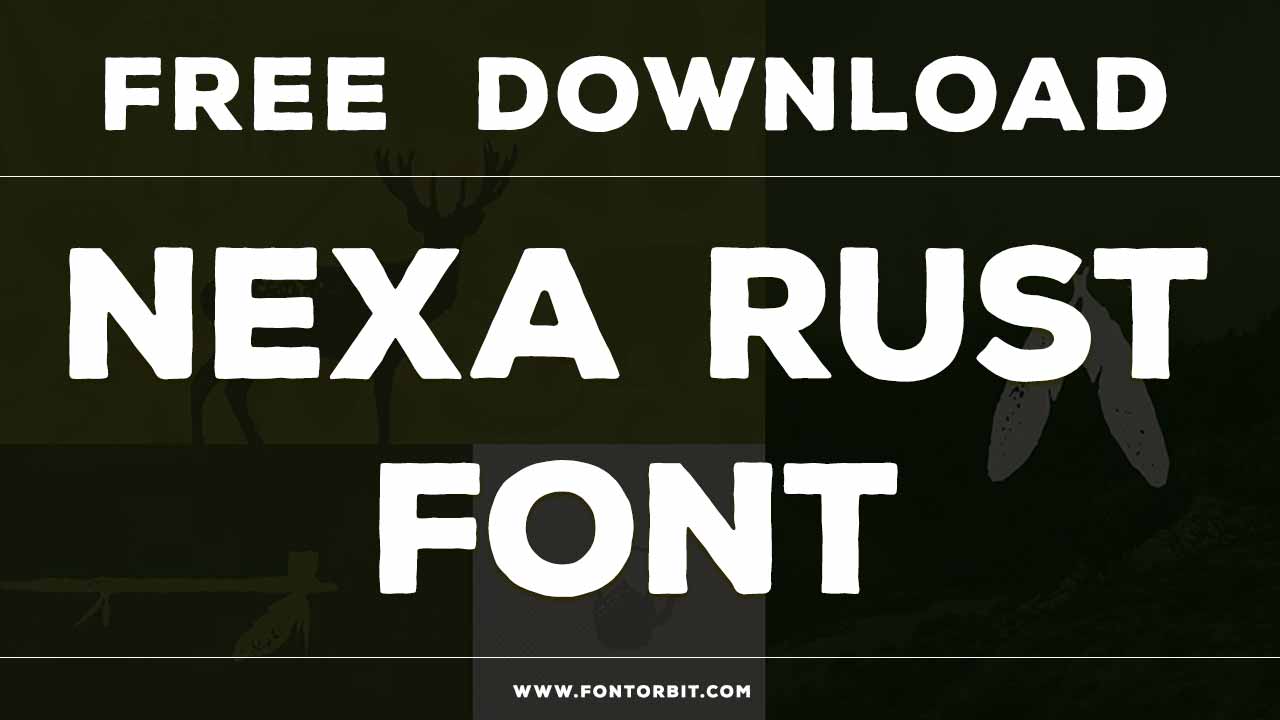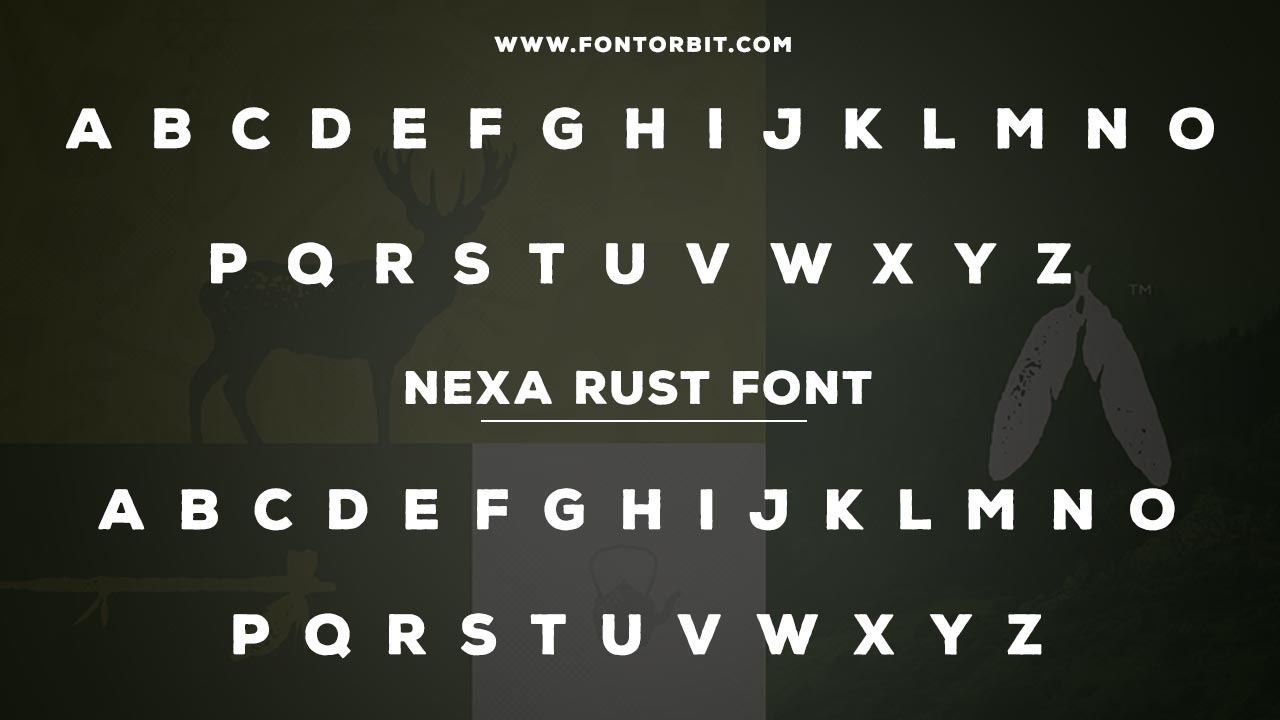
Nexa Rust Font, a multifaceted font system, was designed by Svetoslav Simov, Vasil Stanev, and Radomir Tinkov and published by Fontfabric Type Foundry. This display font has gained popularity due to its rough version of the popular Nexa family. With 83 fonts included, it offers versatility for various design projects. Whether you need a script font, sans serif font, or slab serif font, Nexa Rust provides a unique design with added texture and character.
What Is Nexa Rust Font?
Nexa Rust is an extension of the original Nexa Slab and Nexa Handmade typefaces. It includes a diverse range of font weights, from light to bold, making it ideal for logos, branding, posters, and packaging. Its rough, textured edges add a vintage feel, perfect for headline and decorative text applications. The character map includes uppercase and lowercase letters, numerals, and symbols, making it suitable for multilingual projects, including Hungarian and other European languages.
Styles And Variations In The Nexa Rust Font Family
The Nexa Rust Font Family is divided into multiple styles to suit different design needs:
- Nexa Rust Sans – A sans serif font with bold strokes and a distressed look.
- Nexa Rust Script – A handwritten font that adds a personal touch.
- Nexa Rust Slab – A slab serif font with a textured finish.
- Nexa Handmade – A raw, organic design perfect for rustic branding.
- Extras – Decorative elements to enhance typography-based designs.
Each style offers varying saturation levels, ensuring customization options for different visual aesthetics. Designers appreciate its adaptability, as it can be paired with modern fonts, typewriter fonts, and serif fonts to create a balanced composition.
Features Of Nexa Rust Font
Nexa Rust is a decorative font designed for impactful visuals. Here are some of its key features:
- 83 fonts included in the family.
- Extra cherry elements in the Extras pack.
- High readability despite its rugged texture.
- Best for high-contrast designs with bold colours.
Best Use Cases For Nexa Rust Font
This font is widely used across different industries, especially in creative branding and marketing. Some of its best applications include:
- Logos – The rough and distressed effect makes logos stand out.
- Posters – Ideal for high-impact headline typography.
- Packaging – Used in vintage, rustic, or handmade product branding.
- Advertising – A strong visual appeal makes it perfect for bold ads.
- T-shirts and Merchandise – Works well in screen printing and embroidery.
Similar Fonts To Nexa Rust
If you like Nexa Rust, you might also enjoy these similar fonts:
- Thirsty Rough – A textured script font with vintage aesthetics.
- Pinecone MVB Rough2 Wide – A rustic display font.
- Good Times Bad Times – Offers a distressed effect similar to Nexa Rust Sans Black.
- Novecento Slab Wide Bold – A solid alternative for slab serif fonts.
1.What Type Of Font Is Nexa Rust?
It is a multifaceted font system, combining sans serif fonts, script fonts, and slab serif fonts.
3.What Makes Nexa Rust Different From Other Decorative Fonts?
Its rough version has a unique texture, making it stand out in vintage and handwritten font categories.
4.What’s The Best Font To Pair With Nexa Rust?
Nexa Rust pairs well with modern fonts like Montserrat, Roboto, and Lato.
5.Does Nexa Rust Support Multiple Languages?
Yes, it supports extended Latin characters, including Hungarian, Czech, and Polish.